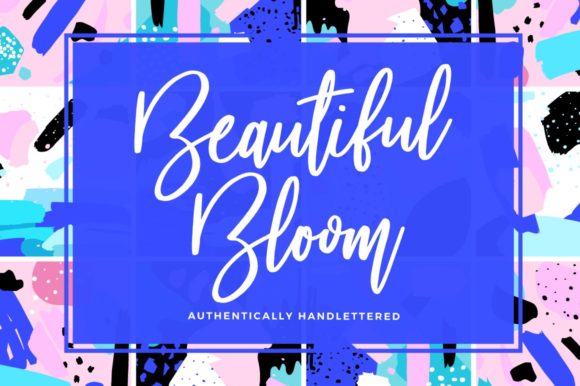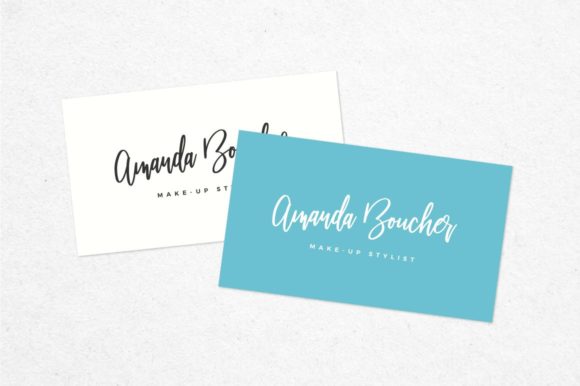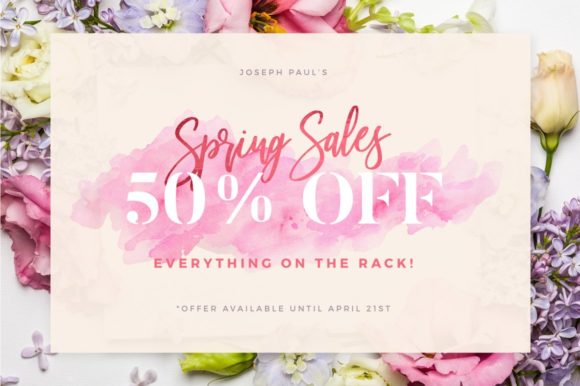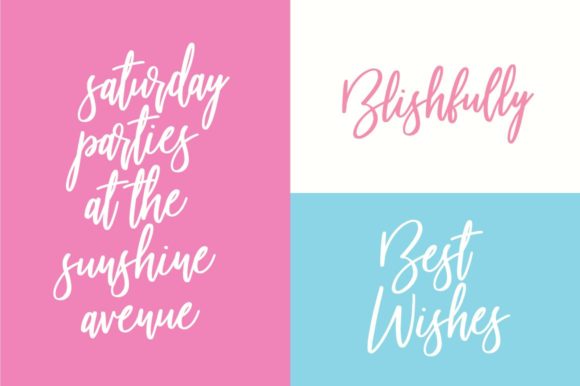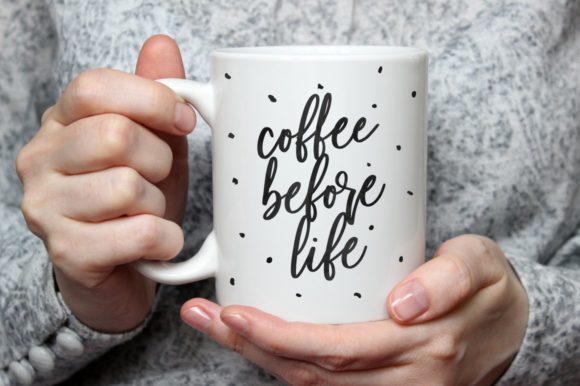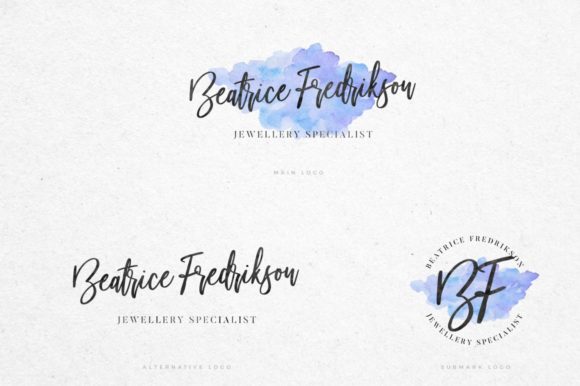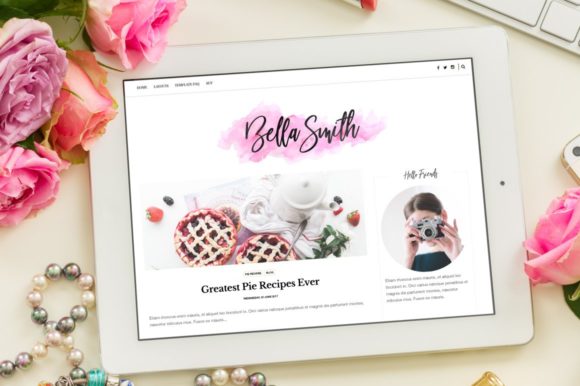
Beautiful Bloom Font
About Beautiful Bloom Font
Beautiful Bloom is a unique and beautiful script font with an authentic style. Get inspired by its contemporary approach to lettering.